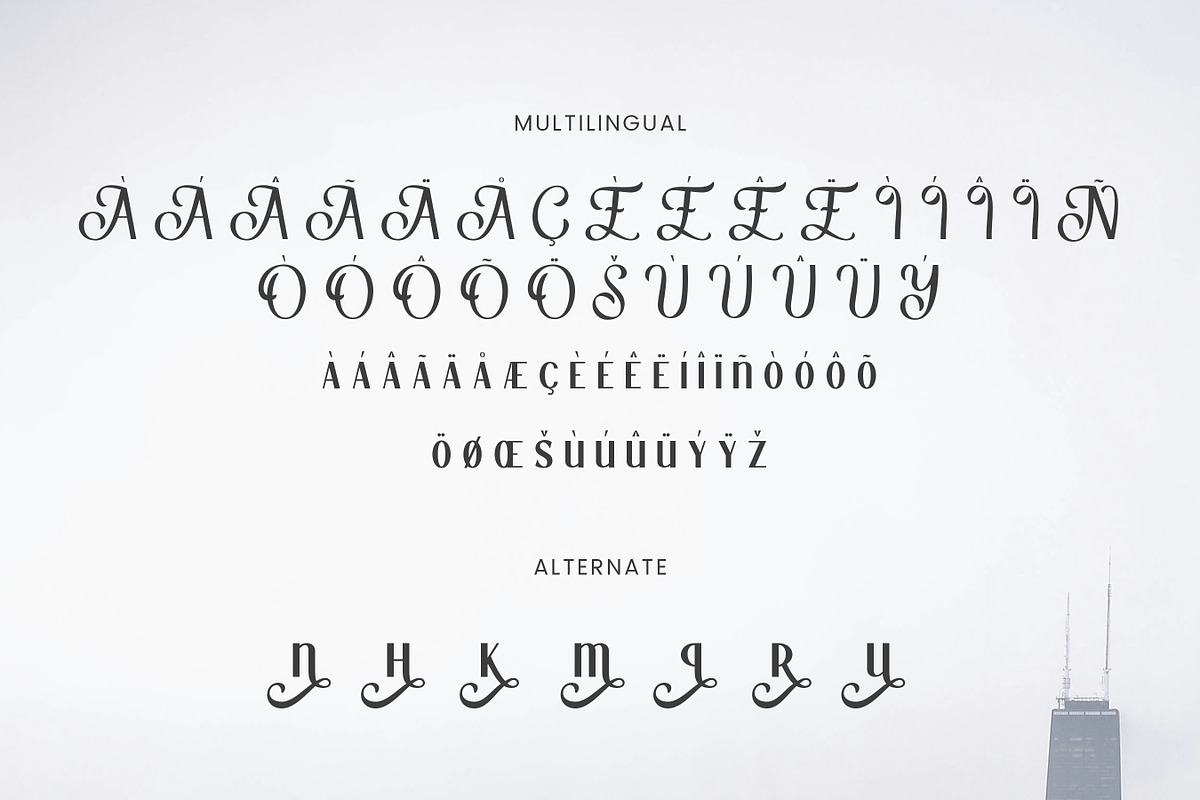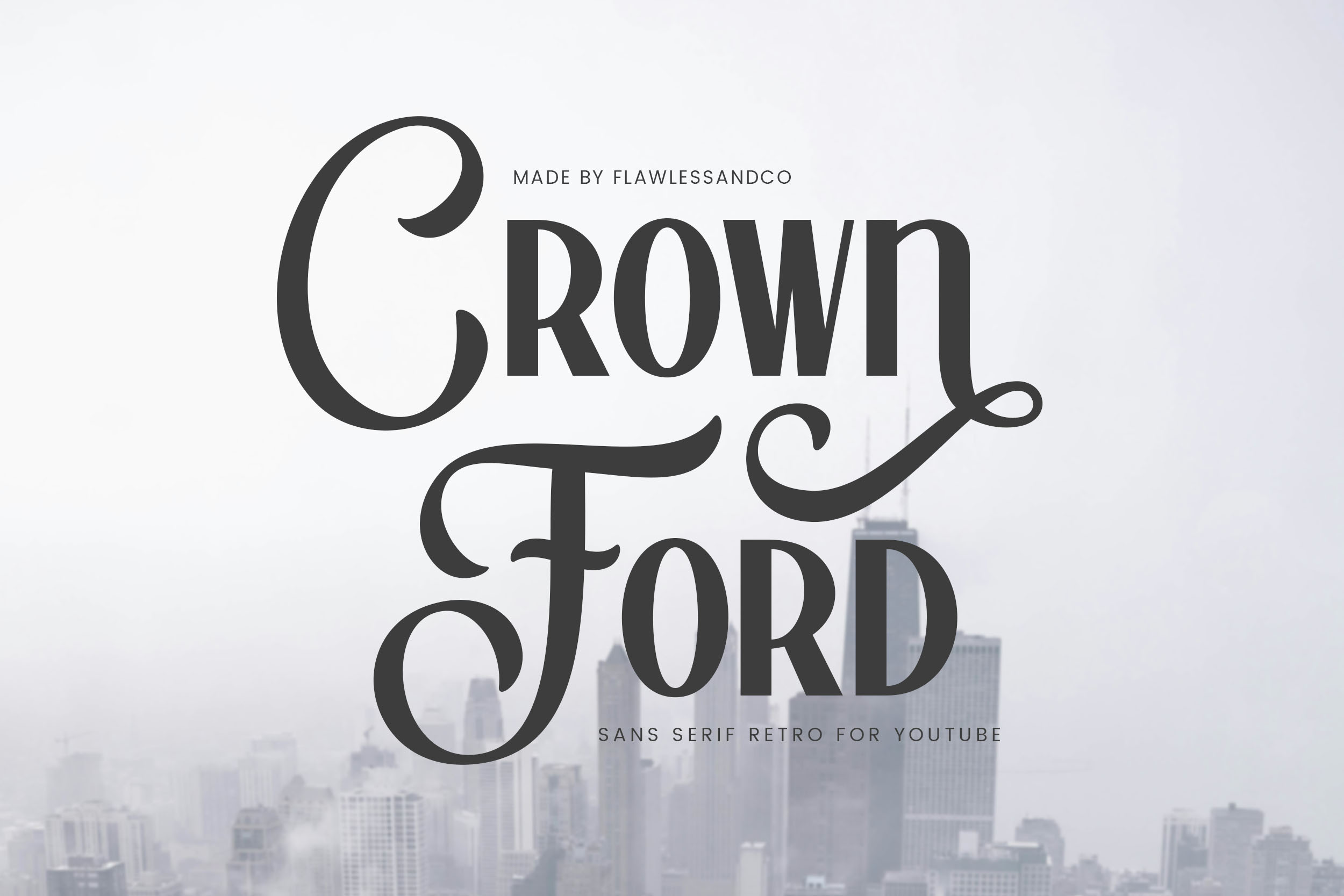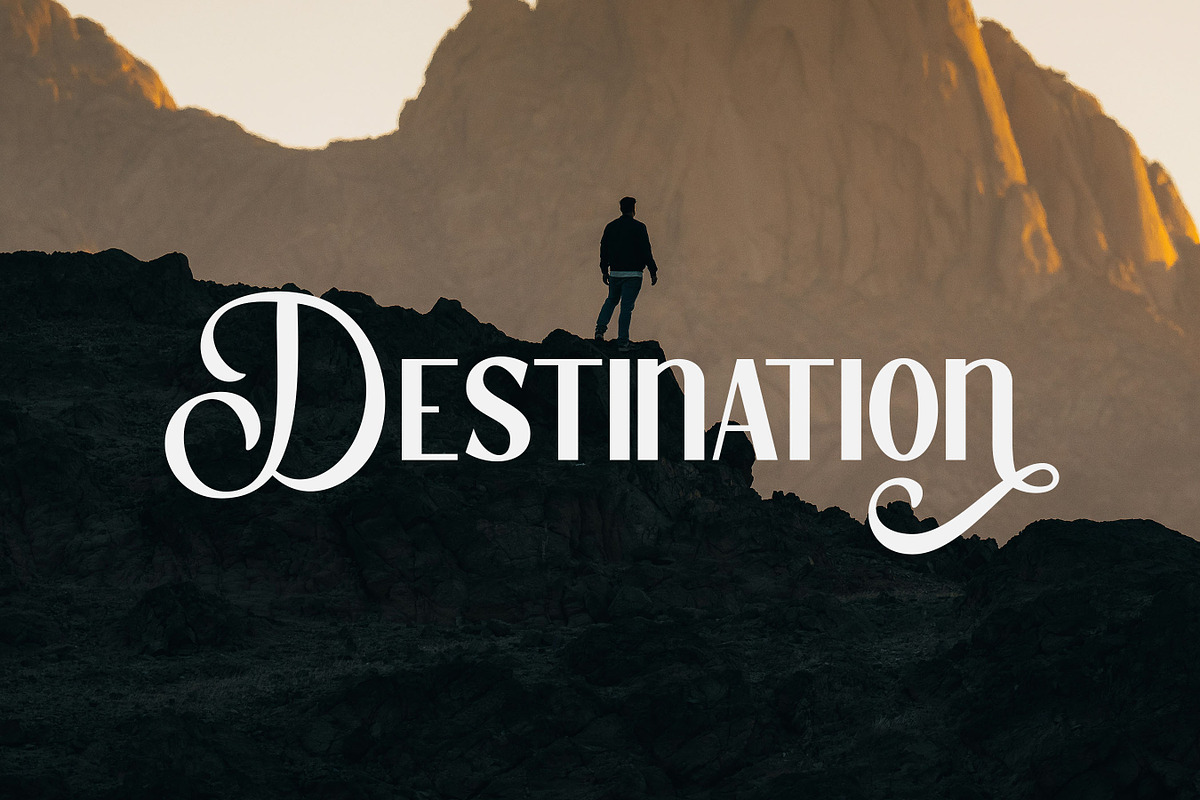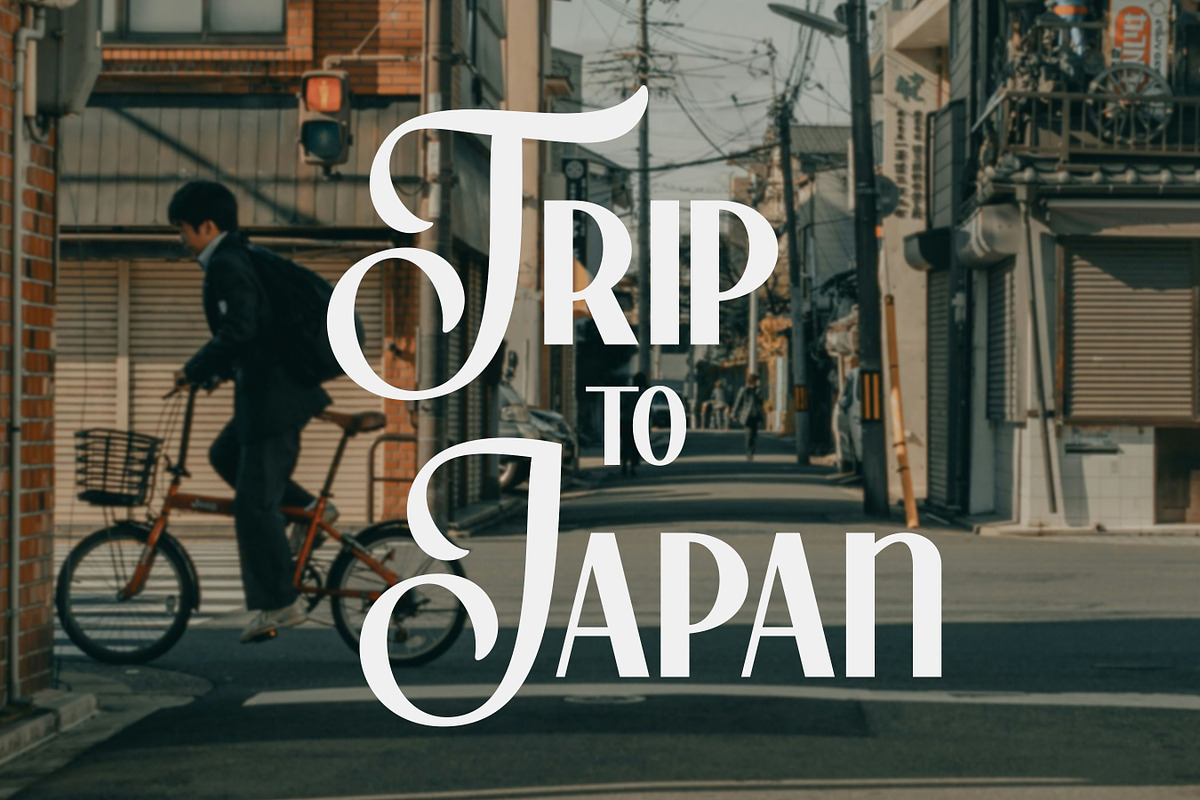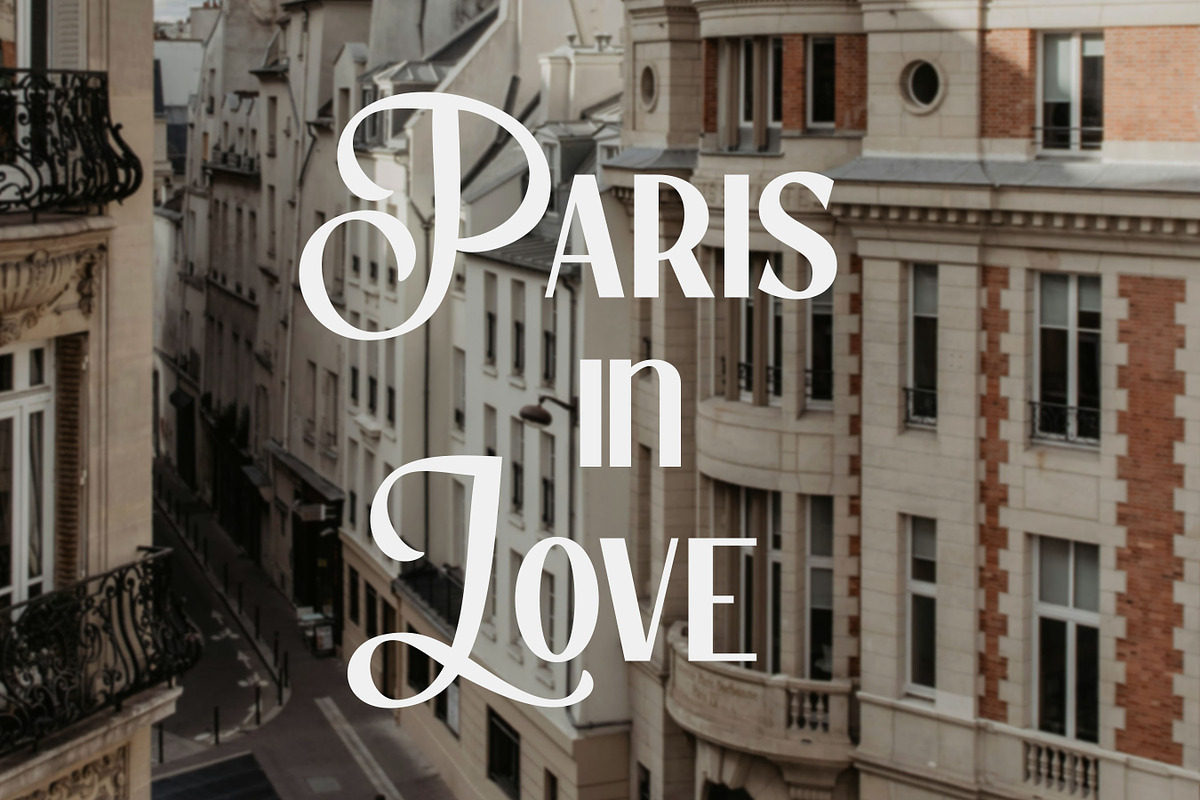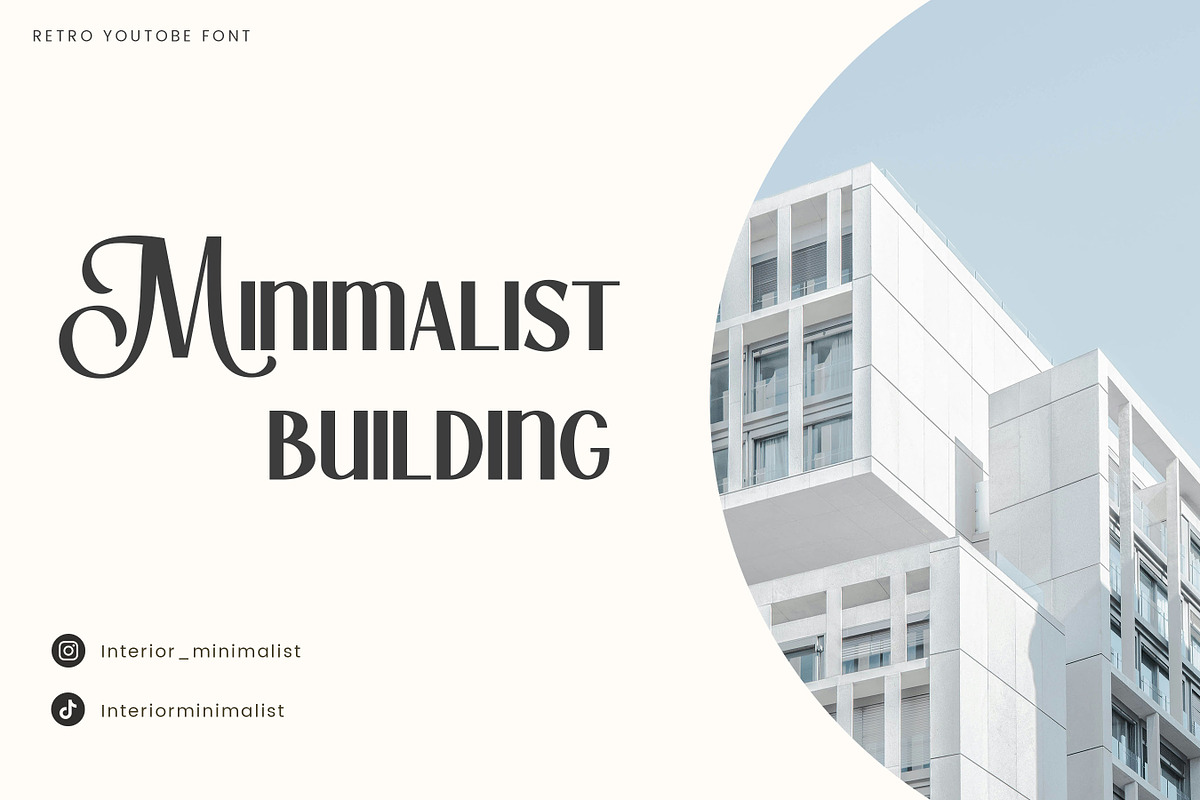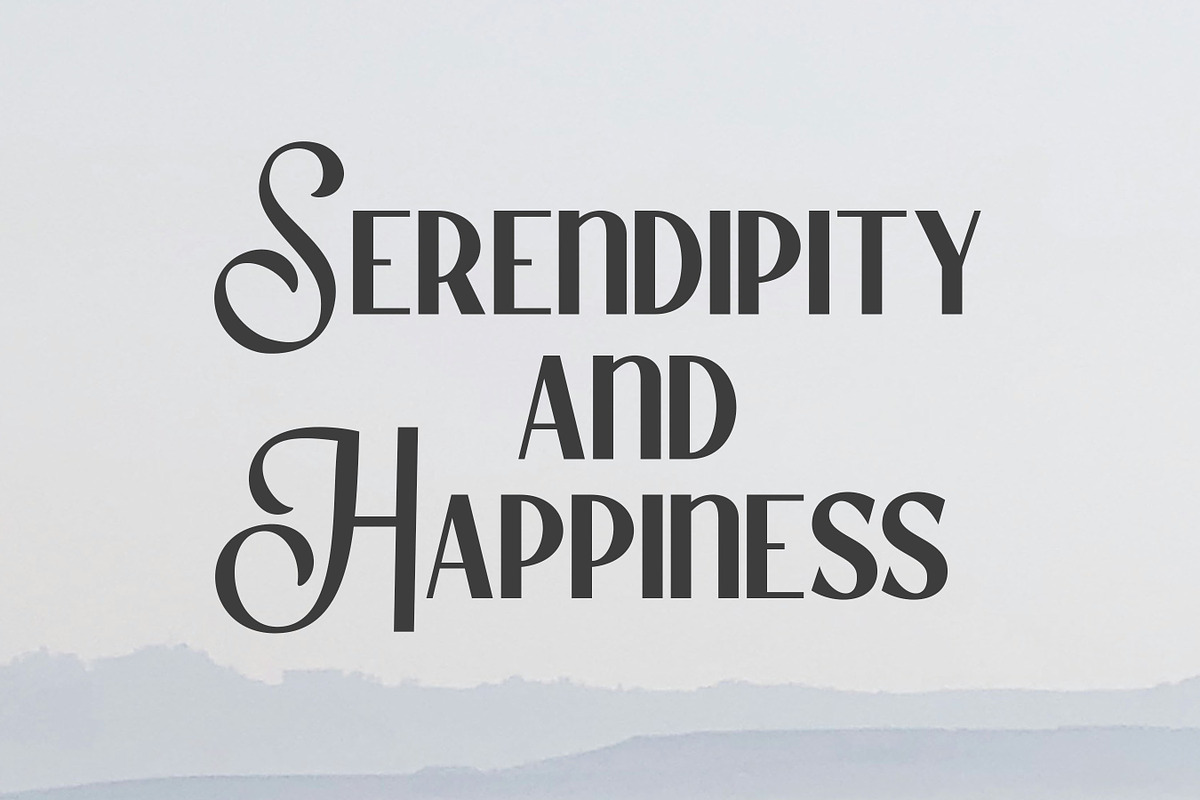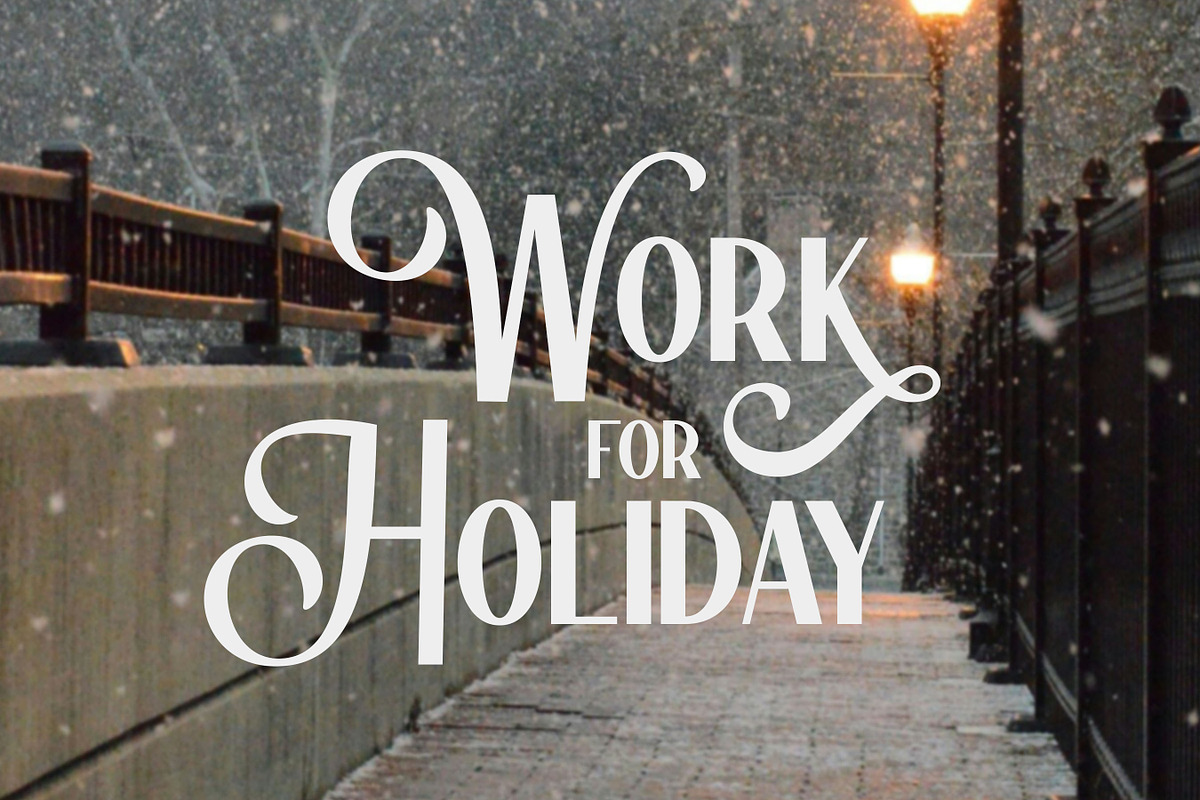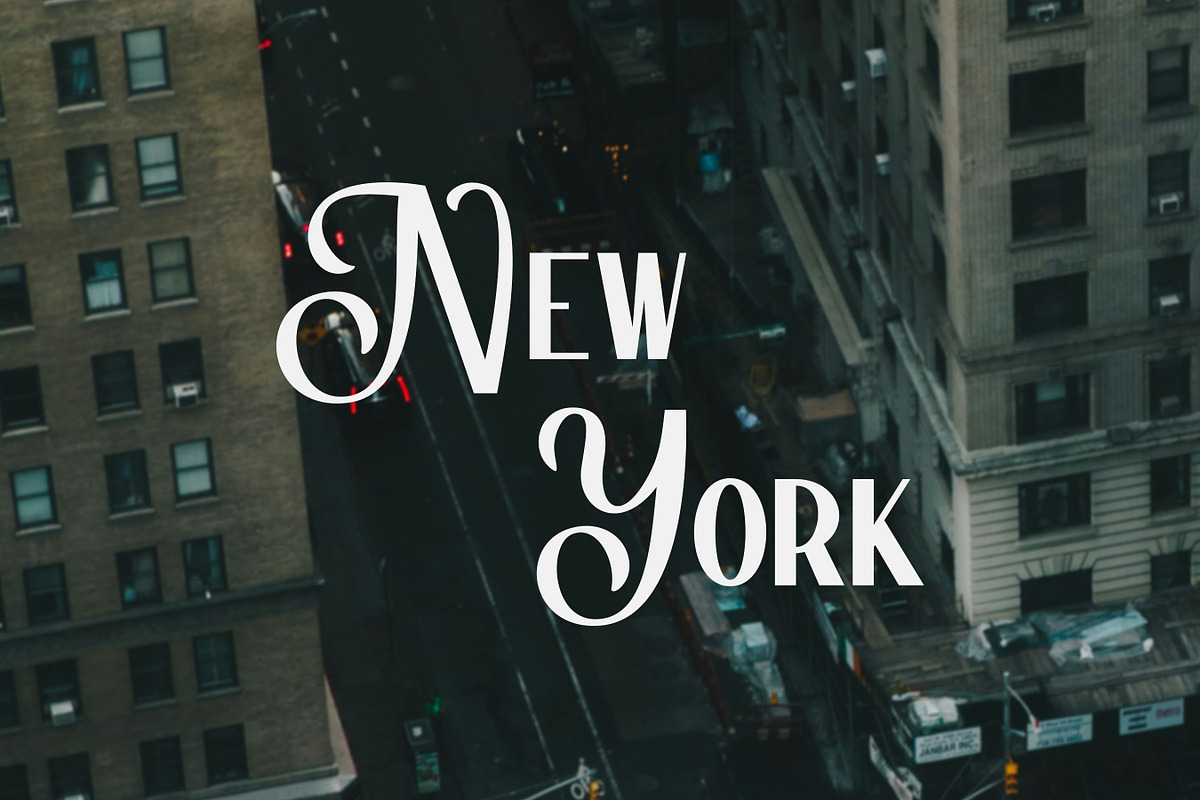
Crown Ford - YouTube Thumbnails Font
Introducing Crown Ford, a bold and captivating sans-serif font designed to make your YouTube thumbnails stand out. With its clean lines and geometric structure, Crown Ford exudes a sense of modernism and professionalism, perfectly complementing a wide range of YouTube content.
Multilingual Uppercase alphabet A-Z Lowercase alphabet a-z Numbers 0-9 Some punctuation